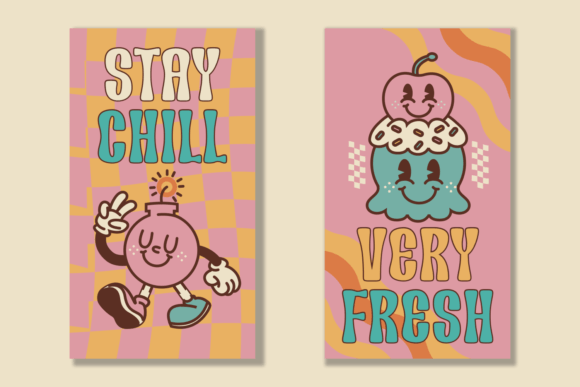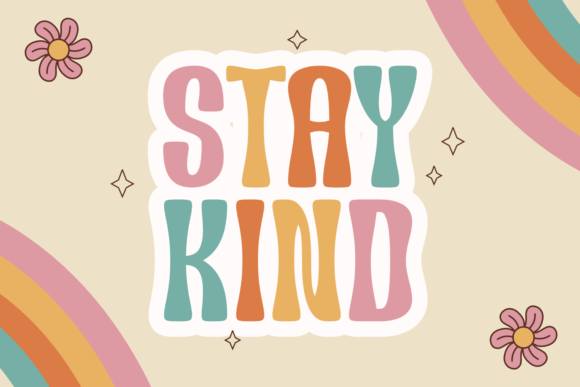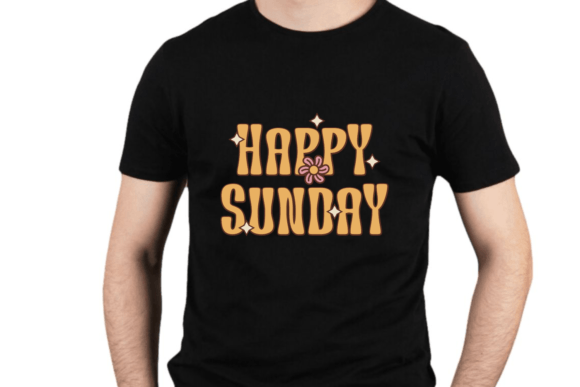
Introducing Adora Morish Font: The Ultimate Retro Display Font for Creative Designs
Are you a designer or crafter looking for a font that can add a touch of retro charm to your typography designs? Look no further than Adora Morish Font! This cute and cheerful display font is perfect for creating eye-catching cards, invitations, posters, signage, t-shirts, and more. In this article, we’ll dive into the features and benefits of Adora Morish Font, and explore how you can use it to take your designs to the next level.
What is Adora Morish Font?
Adora Morish Font is a groovy set of characters that exudes a lovely retro style. Its unique and playful design makes it perfect for adding a touch of whimsy to your designs. Whether you’re creating a vintage-inspired poster or a modern t-shirt design, Adora Morish Font is sure to make your typography stand out.
Key Features of Adora Morish Font
- Cute and Cheerful Design: Adora Morish Font features a playful and charming design that’s sure to bring a smile to your face.
- Retro Style: This font is perfect for adding a touch of retro charm to your designs, making it ideal for vintage-inspired projects.
- Display Font: Adora Morish Font is a display font, making it perfect for headlines, titles, and other large-format text.
- Versatile: This font can be used for a wide range of design projects, from cards and invitations to posters and t-shirts.
Benefits of Using Adora Morish Font
So why choose Adora Morish Font for your design projects? Here are just a few benefits of using this amazing font:
- Adds a Touch of Whimsy: Adora Morish Font adds a playful and whimsical touch to your designs, making them stand out from the crowd.
- Easy to Read: Despite its playful design, Adora Morish Font is easy to read, making it perfect for use in a wide range of design projects.
- Instant Recognition: The unique design of Adora Morish Font makes it instantly recognizable, adding a touch of personality to your designs.
- Time-Saving: With Adora Morish Font, you can create stunning typography designs in no time, saving you time and effort.
Creative Ways to Use Adora Morish Font
So how can you use Adora Morish Font in your design projects? Here are a few creative ideas to get you started:
- Create Eye-Catching Posters: Use Adora Morish Font to create stunning posters that grab attention and make a statement.
- Design Unique Invitations: Add a touch of retro charm to your invitations with Adora Morish Font, making them truly unforgettable.
- Make Your T-Shirts Stand Out: Use Adora Morish Font to create eye-catching t-shirt designs that are sure to turn heads.
- Add a Touch of Whimsy to Your Cards: Use Adora Morish Font to create playful and charming cards that are perfect for any occasion.
Tips for Getting the Most Out of Adora Morish Font
To get the most out of Adora Morish Font, here are a few tips to keep in mind:
- Experiment with Different Sizes: Adora Morish Font looks great in a wide range of sizes, so don’t be afraid to experiment and find the perfect size for your design.
- Pair with Other Fonts: Adora Morish Font pairs well with a wide range of other fonts, so try combining it with other fonts to create a unique and interesting look.
- Use it Sparingly: While Adora Morish Font is perfect for headlines and titles, it can be overwhelming if used too much. Use it sparingly to create a balanced design.